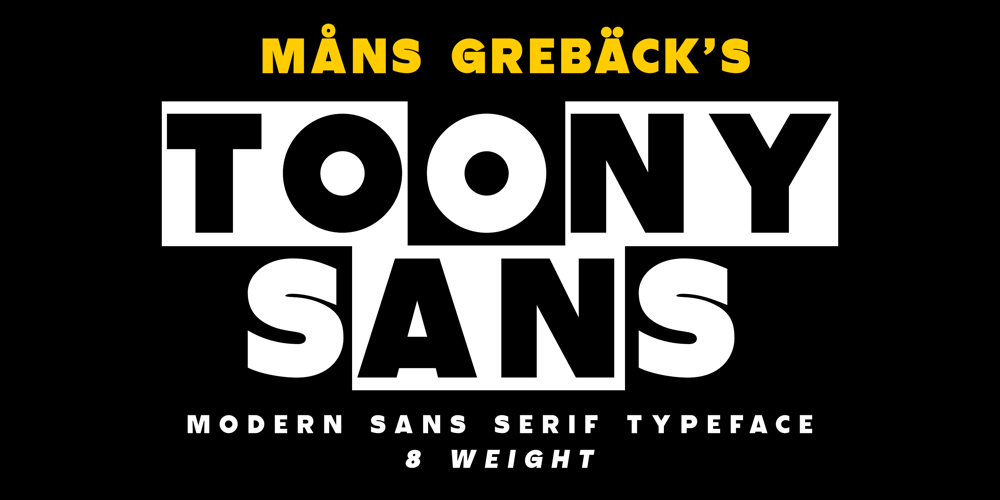
Toony Sans Font Family was designed by Måns Grebäck and published by Mans Greback. Toony Sans contains 8 styles and family package options. Toony Sans stands as a modern interpretation of classic typography. A nod to beloved animations, its crisp, sans-serif form captures an essence of professionalism with just a touch of nostalgic charm. Toony Sans presents a clean, streamlined look, perfect for projects requiring clarity and elegance. Its sharp edges and precise design give it a contemporary feel, yet there’s an undeniable warmth that resonates with every character.